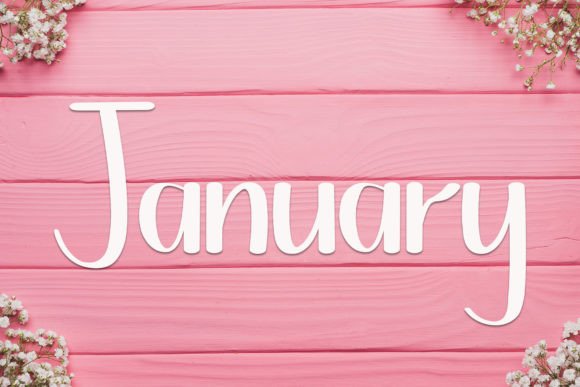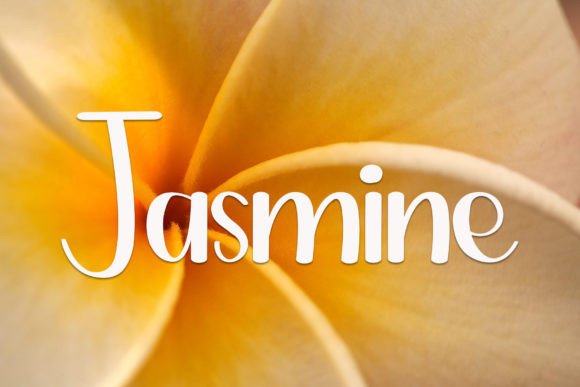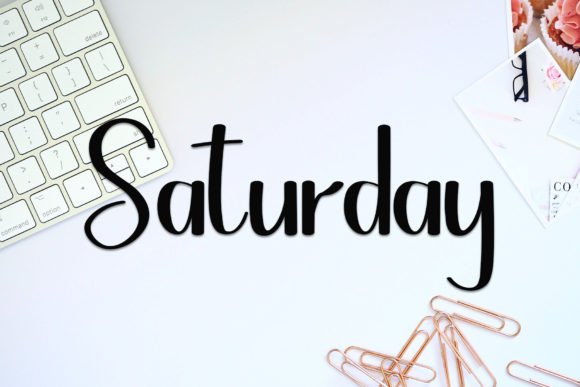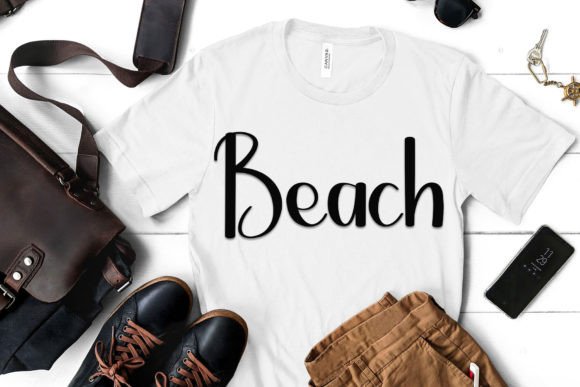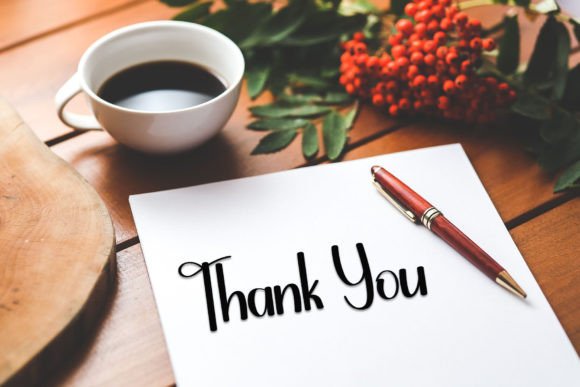
Introducing Arrow Font: The Elegant and Timeless Choice for Your Design Projects
Are you looking for a font that adds a touch of elegance and sophistication to your design projects? Look no further than Arrow Font, a beautiful handwritten font that is sure to capture your heart. With its incredibly distinct and timeless style, Arrow Font is the perfect choice for designers and crafters who want to create spectacular designs that stand out from the crowd.
What Makes Arrow Font So Special?
Arrow Font is a neat and beautiful handwritten font that is described by an elegant touch. Its unique and distinctive style is perfect for a wide range of design projects, from wedding invitations and party decorations to branding and advertising materials. The font’s classic and timeless look ensures that it will never go out of style, making it a great investment for designers and crafters who want to stay ahead of the curve.
Key Features of Arrow Font
- Elegant and Sophisticated: Arrow Font has an elegant and sophisticated feel that is perfect for high-end design projects.
- Handwritten Style: The font’s handwritten style gives it a personal and unique touch that sets it apart from other fonts.
- Timeless Design: Arrow Font’s classic design ensures that it will never go out of style, making it a great choice for designers and crafters who want to create designs that stand the test of time.
- Versatile: The font is versatile and can be used for a wide range of design projects, from wedding invitations and party decorations to branding and advertising materials.
How to Use Arrow Font in Your Design Projects
Arrow Font is easy to use and can be incorporated into a wide range of design projects. Here are a few ideas to get you started:
- Wedding Invitations: Use Arrow Font to create beautiful and elegant wedding invitations that set the tone for the big day.
- Party Decorations: Create stunning party decorations, such as banners and garlands, using Arrow Font.
- Branding and Advertising: Use Arrow Font to create professional and eye-catching branding and advertising materials, such as logos and brochures.
- Digital Designs: Incorporate Arrow Font into your digital designs, such as social media graphics and website headers, to add a touch of elegance and sophistication.
Tips for Getting the Most Out of Arrow Font
Here are a few tips for getting the most out of Arrow Font:
- Experiment with Different Sizes: Experiment with different font sizes to find the perfect size for your design project.
- Pair with Other Fonts: Pair Arrow Font with other fonts to create a unique and eye-catching design.
- Use in Combination with Images: Use Arrow Font in combination with images to create a stunning and effective design.
Arrow Font is a beautiful and elegant handwritten font that is perfect for designers and crafters who want to create spectacular designs. With its incredibly distinct and timeless style, Arrow Font is sure to capture your heart and become a go-to font for all your design projects. So why wait? Fall in love with Arrow Font today and start creating stunning designs that stand out from the crowd!